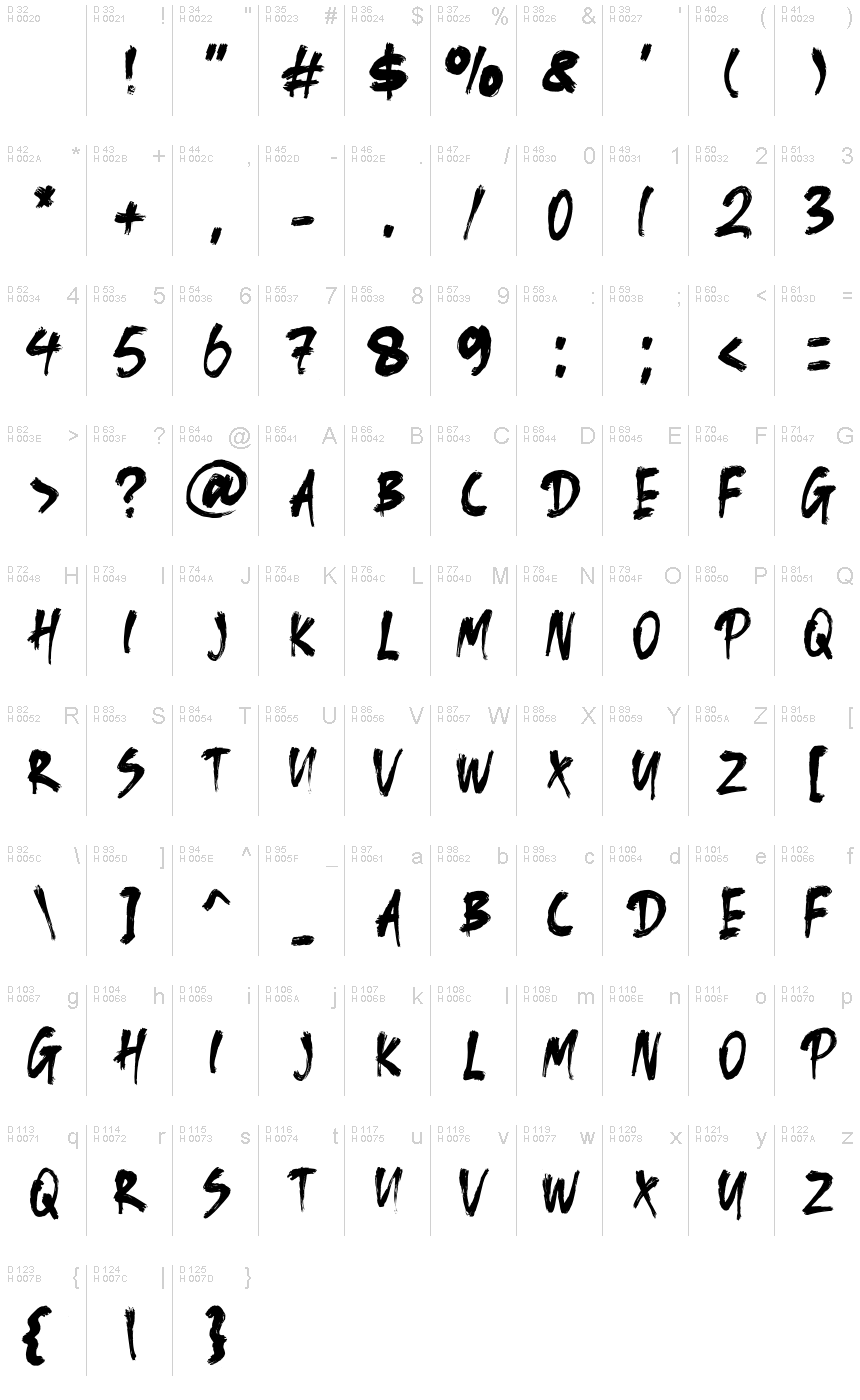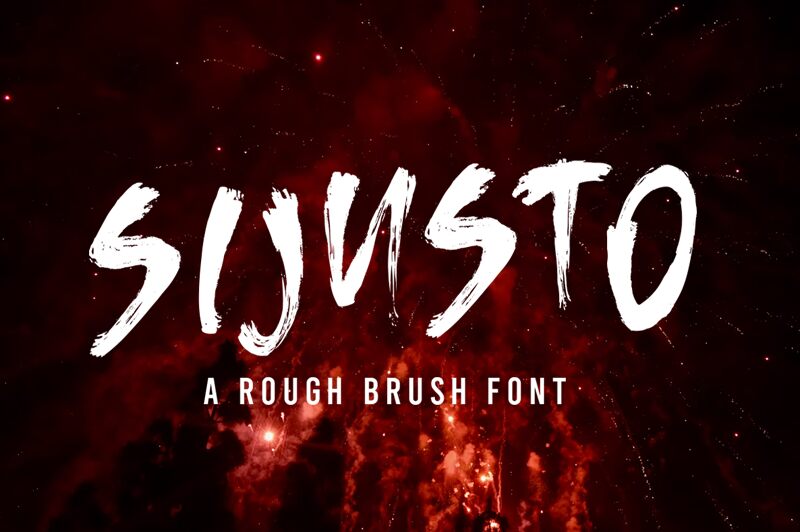
SIJUSTO Regular
Sijusto, crafted by Vultype, is a captivating brush font that commands attention with its bold, dynamic strokes. This condensed typeface radiates a raw, expressive energy, evoking a sense of movement and artistry. The irregular, organic shapes of the letterforms create a unique visual rhythm, lending an authentic, handcrafted feel to any design.
Sijusto's versatility shines through its ability to seamlessly transition between various design contexts. Its strong, distinctive character makes it an exceptional choice for branding, editorial layouts, and eye-catching headlines. Whether you're crafting a cutting-edge logo, designing a modern magazine spread, or infusing your project with a touch of authentic flair, Sijusto's bold presence is sure to leave a lasting impression.